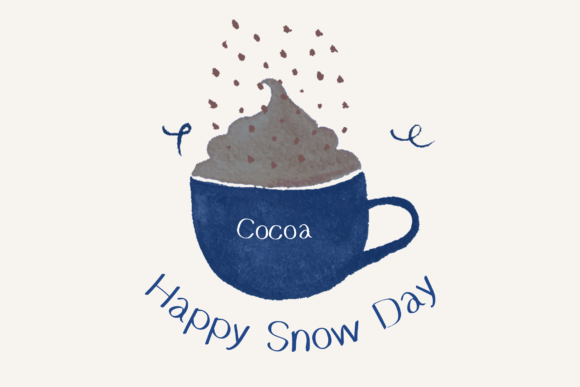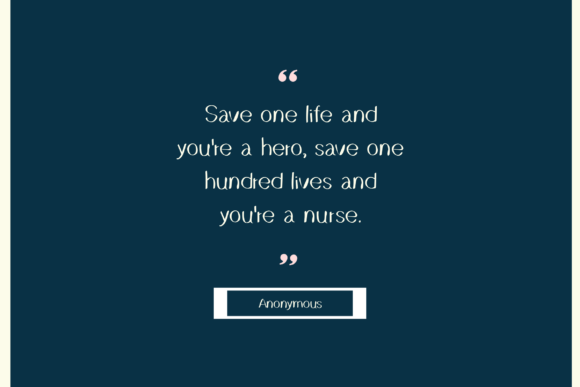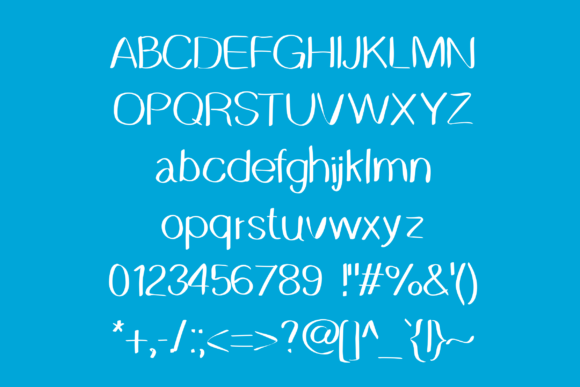
Introduction to Gangster Font
Remember that moment when you’re working on a creative project and you just can’t seem to find the right font to bring it all together? It’s like searching for the missing piece of a puzzle – frustrating, yet essential. That’s where the Gangster Font comes in, a simple yet powerful design resource that can elevate any creation.
As a designer, you know how much of a difference a great font can make. It’s the first thing people notice, and it sets the tone for the entire project. The Gangster Font is a high-quality, free download that’s perfect for adding a touch of personality to your designs.
With its transparent background and round, handwritten style, the Gangster Font is an incredibly versatile design tool. Whether you’re working on a logo, a brochure, or a social media post, this font is sure to be an asset to your library.
Gangster Font Key Features
- Unique, edgy design perfect for creative projects, such as posters, flyers, and brochures, that require a bold and attention-grabbing font.
- Features a large character set, including uppercase and lowercase letters, numbers, and special characters, making it suitable for a wide range of creative projects.
- Perfect for designers and artists looking for a bold, eye-catching font to add a touch of sophistication and style to their creative projects.
Honest Review: Gangster Font
- Unique Design: The Gangster Font boasts a distinct, rugged aesthetic that adds a touch of edginess to any design.
- Limited Character Set: While the font is great for headings and titles, it’s not ideal for body text due to its limited character set.
- Not Suitable for All Projects: The Gangster Font’s bold, edgy style may not be suitable for all design projects, such as corporate or professional materials.
Overall, the Gangster Font is a great design resource for those looking for a unique, high-quality font. Its limitations are worth considering, but I believe it’s a valuable addition to any designer’s library.
Tips for Getting the Most Out of Gangster Font
To get the most out of the Gangster Font, use it with a transparent background to create a sense of depth and dimension. You can also combine it with other design elements, such as graphics and images, to create a unique and eye-catching design.
The Gangster Font is perfect for various creative projects, including brochures, flyers, posters, and social media graphics. It’s also great for use in logos, branding materials, and advertising campaigns.